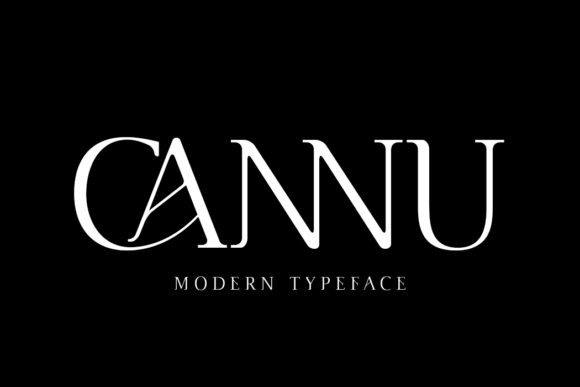
Finding Your Brand Voice: A Real Review of the Cannu Font
Sitting down to redesign my café’s menu last week, I felt that familiar pang of uncertainty. The old one was serviceable, but it didn’t feel like *us* anymore. We wanted something that looked polished, consistent, and quietly confident—the visual equivalent of a perfectly brewed cup of coffee. I started scrolling through fonts, feeling lost in a sea of overly decorative scripts and impersonal sans-serifs. Then I found Cannu, a modern serif font, and everything clicked.
Cannu for Clean Logo Design and Minimalist Brand Identity
When you’re building a brand identity from scratch, or refreshing an existing one, the choice of a serif font can feel daunting. Cannu, however, simplifies that decision with its clean and modern character. Its elegance isn’t loud or ornate; it’s a quiet confidence that works beautifully for a primary logo. I tested it by sketching out a simple logo for a hypothetical candle business, using just the business name typed in Cannu. The result was striking—the font alone conveyed a sense of quality and thoughtful craftsmanship without any extra icons or graphics. This modern serif font carries a minimalist personality, making it the perfect choice for anyone who wants their brand’s name to be the star of the show. It’s that kind of elegant foundation that can anchor your entire visual world.
Using Cannu for Product Labels and Packaging Typography
The real test for any commercial font is on the product itself. I applied Cannu to mockups for several small business scenarios: a natural skincare product label, a ceramic mug’s packaging sleeve, and a box for artisan chocolates. The font’s beautiful design style shone in each case. For the skincare label, Cannu rendered the product name with a clean, trustworthy feel, essential for that industry. On the chocolate box, it added a touch of sophistication without looking stuffy. The key is its readability at various sizes. Even on a small candle jar label, the letterforms remained distinct and legible. This versatility makes Cannu suitable for almost any graphic design task involving physical goods. It bridges the gap between digital design and print perfectly, ensuring your brand looks consistent from your online shop banner to the actual product in your customer’s hand.
Cannu Fonts for Editorial Design and Menu Layouts
Back to that café menu. Typography affects first impressions profoundly, especially in editorial layouts like menus, brochures, or flyers. A cluttered, hard-to-read menu can subtly undermine the customer experience. Using Cannu for the section headings (like “Espresso Classics” or “Fresh Pastries”) immediately brought a structured, elegant clarity to the layout. I paired it with a simple, neutral sans-serif for the descriptive body text and pricing. This pairing—a modern serif font like Cannu for titles and a clean sans for details—is a classic, fail-safe combination. It creates hierarchy, improves readability, and makes the entire piece feel professionally composed. This approach works equally well for a boutique’s lookbook, a coach’s service sheet, or a blogger’s downloadable guide.
Cannu in Social Media Graphics and Digital Ad Design
In our digital storefronts—Instagram, Facebook, website banners—consistency is king. Using the same Cannu font for your Instagram story titles, your YouTube channel banner, and your newsletter headers builds a recognizable and trustworthy brand image. I created a set of Instagram template graphics for a handmade jewelry shop, using Cannu for the “New Collection” and “Limited Edition” text overlays. The font’s minimalist elegance ensured the graphics felt premium but not intrusive, allowing the product photos to remain the focus. For digital ads, where you have seconds to capture attention, a font like Cannu communicates quality quickly. Its beautiful design style lends an air of legitimacy to the offer, whether you’re promoting a webinar, a product launch, or a seasonal sale.
Practical Considerations Before Using Cannu Commercially
My search for a typographic voice ended with Cannu because it solved a real problem: it made my brand look intentionally designed. It didn’t require a degree in graphic theory to implement effectively. For the small business owner, the entrepreneur, or the maker, a font is a tool. Cannu is a particularly good one—a modern, elegant, and adaptable serif font that helps you build a polished, consistent, and memorable brand presence, from your product labels to your posts.